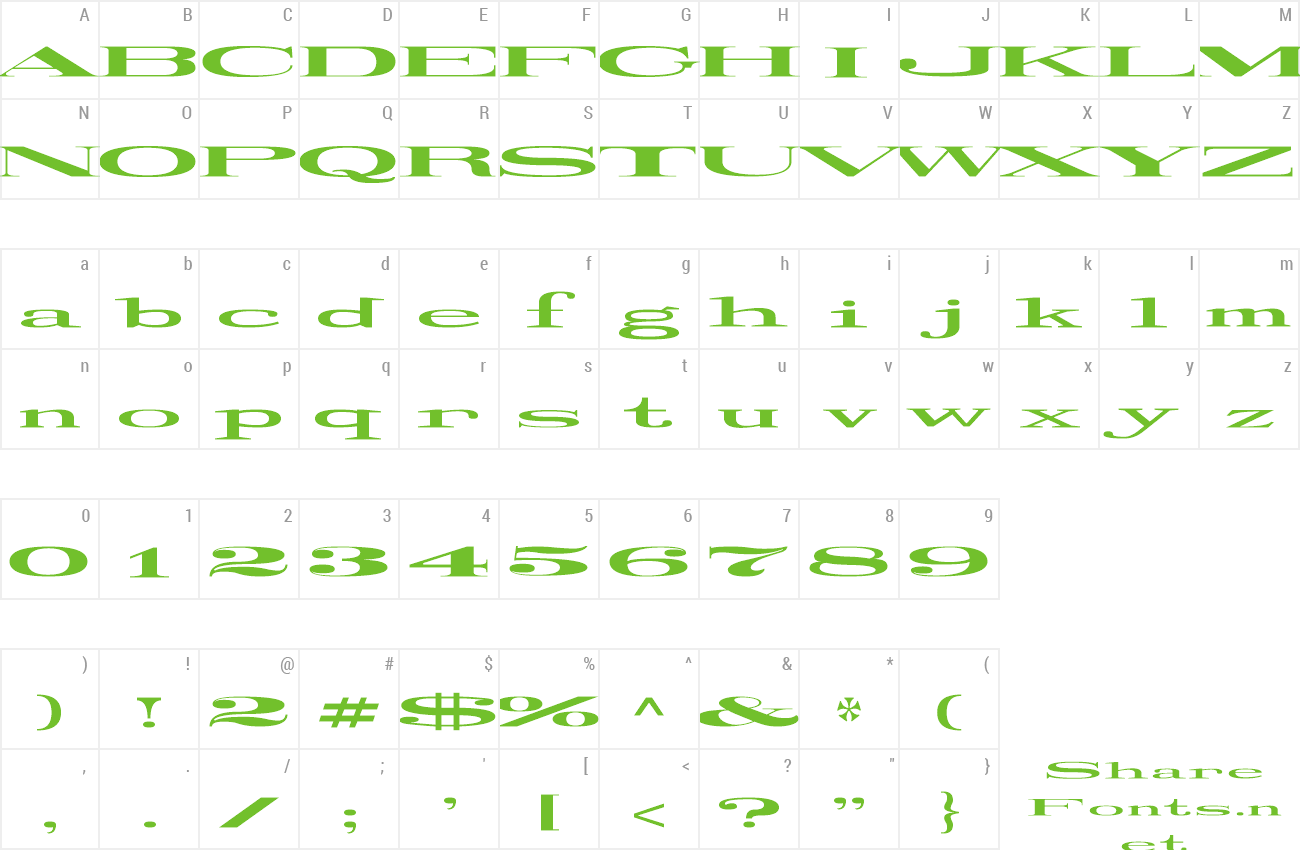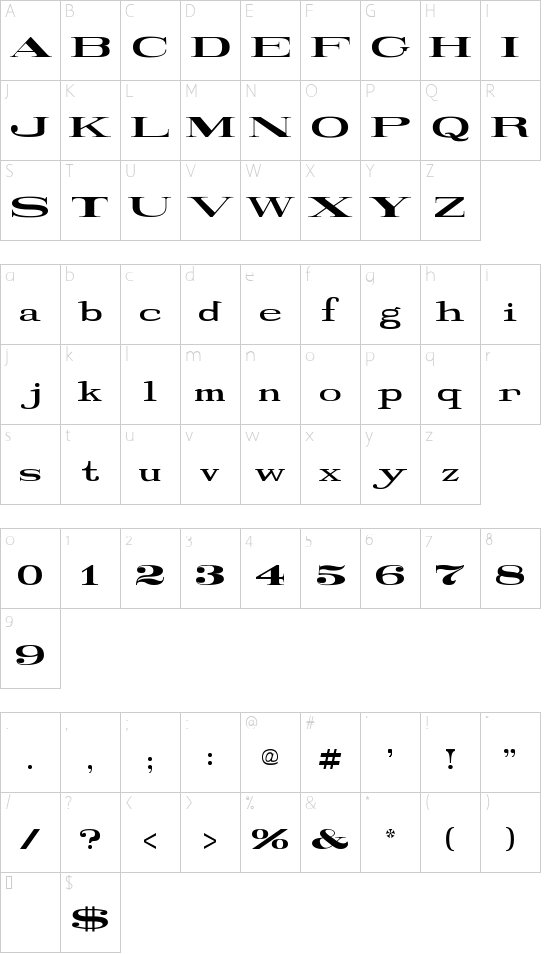
Railroad Roman Font
Railroad Roman Font - Web this railroad roman 1916 font is similar, but not an exact replication, of characters displayed on numerous railroad cars,.
Web this railroad roman 1916 font is similar, but not an exact replication, of characters displayed on numerous railroad cars,.